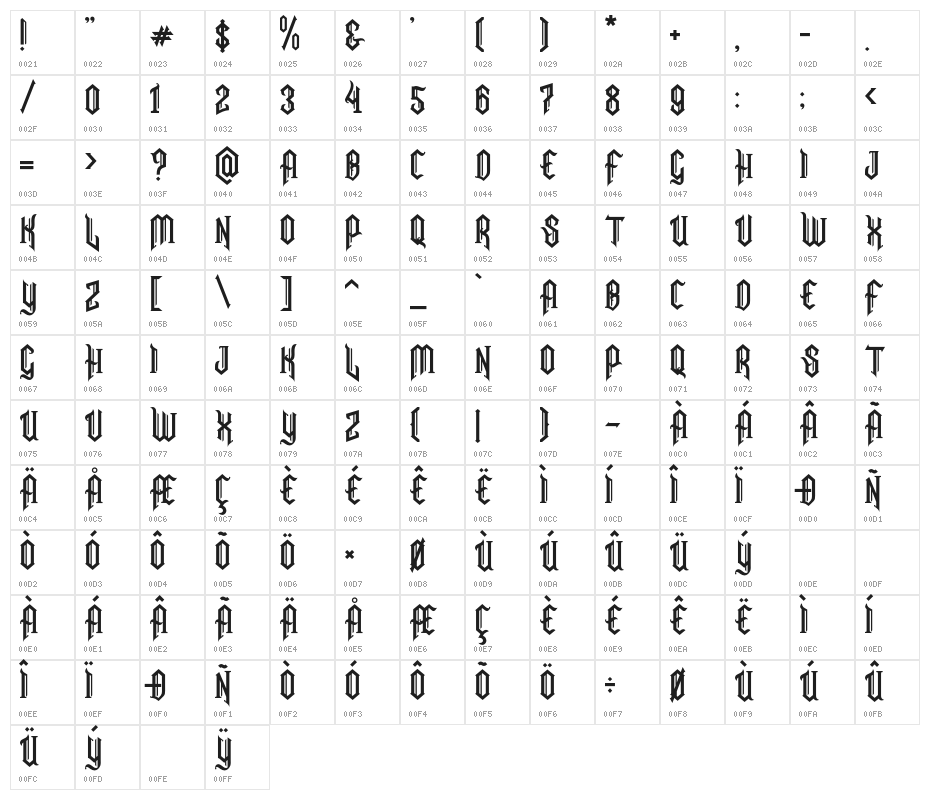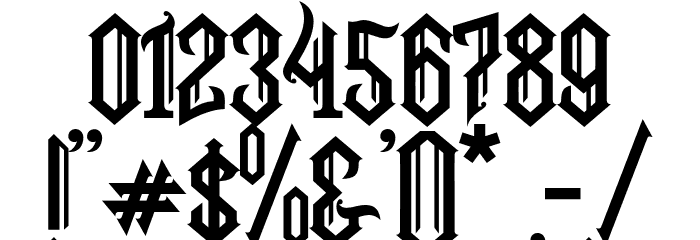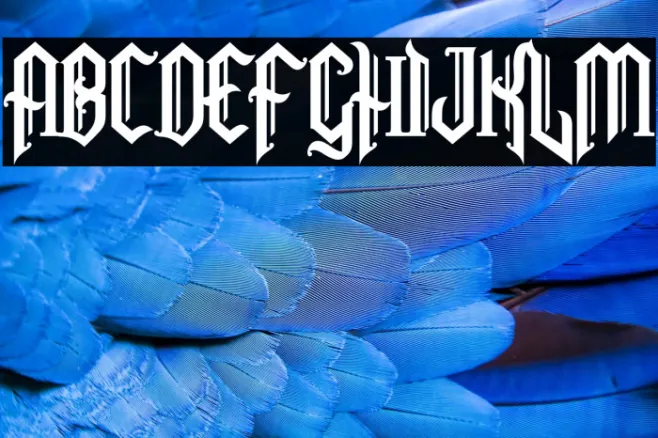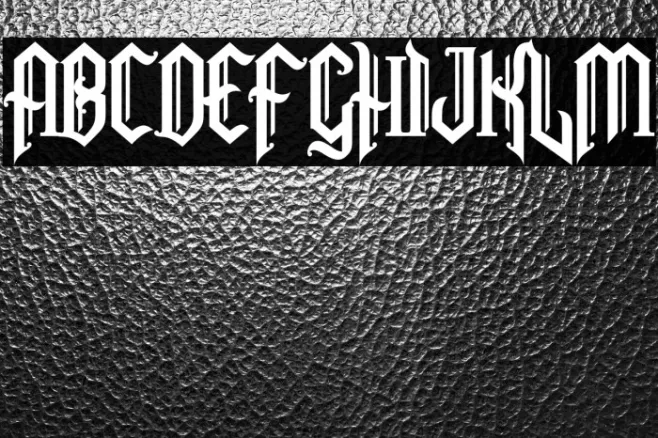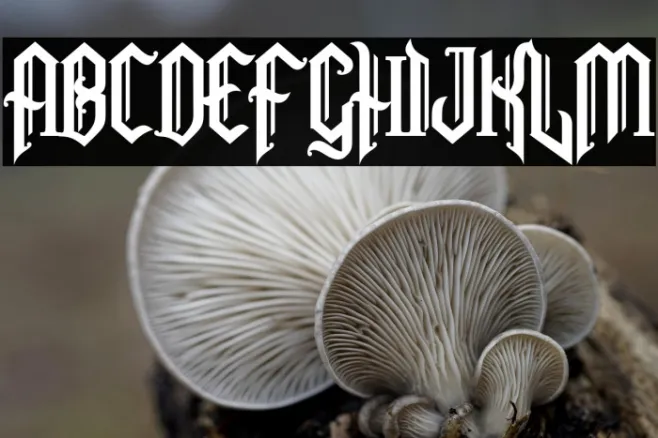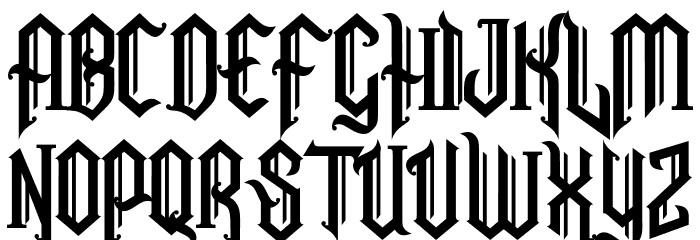
SnubhoreDemo Font
SnubhoreDemo Description
This font features a striking and bold blackletter style, characterized by its sharp, angular lines and intricate detailing. The uppercase letters are tall and narrow, with pointed serifs that give a sense of elegance and tradition. The lowercase letters maintain the same angular aesthetic, providing a cohesive look throughout. Numbers and special characters are designed with the same attention to detail, ensuring consistency across all glyphs. This font evokes a sense of history and formality, making it suitable for projects that require a touch of classic sophistication.